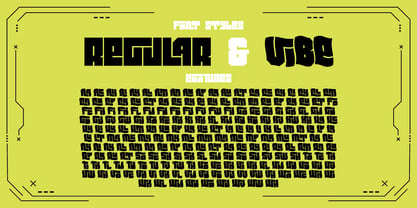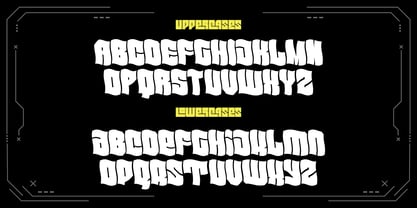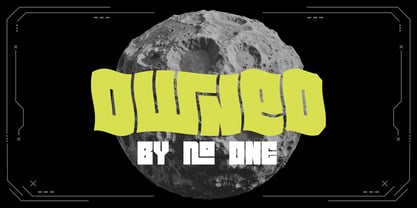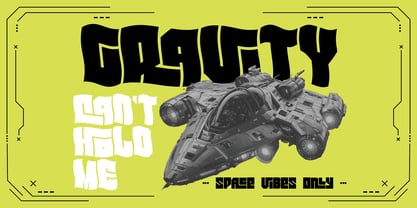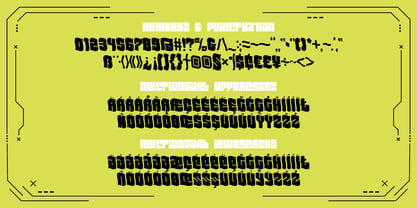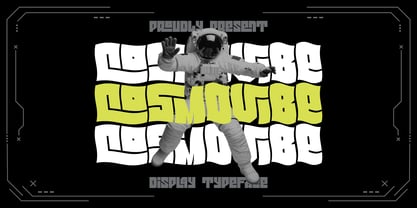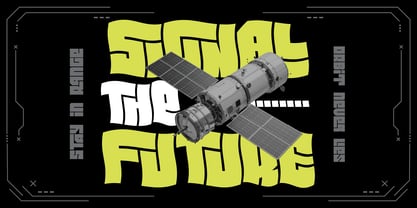
Cosmovibe
by Vozzy
Introducing the captivating font family "Cosmovibe," designed specifically for headlines and accent inscriptions that demand attention. This unique typeface features a rich array of additional characters, punctuation marks, and multilingual options, making it versatile for various design needs. With an extensive selection of standard ligatures, ensure your software supports this OpenType feature to fully utilize its capabilities. "Cosmovibe" is perfect for branding, web design, and editorial projects, adding a distinctive flair to your beautiful designs!
Designers: Oleg Voznyy
Foundry: Vozzy
Cosmovibe